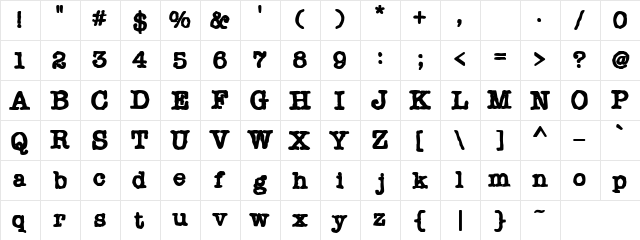
Hahging Pot Regular
Design Context for Hahging Pot Typeface
Hahging Pot takes a measured approach to typography — its balanced proportions and neutral character make it a reliable workhorse for both digital and print work.